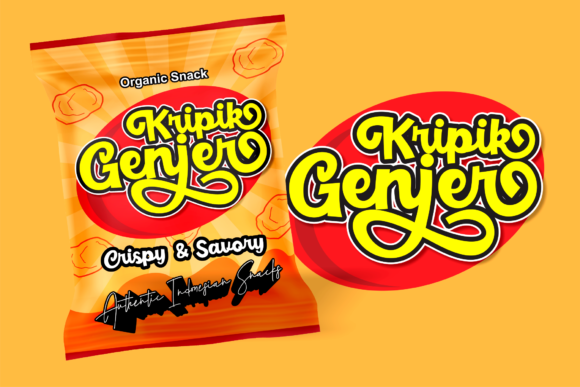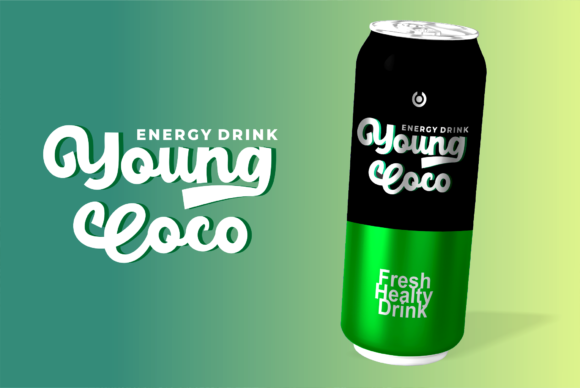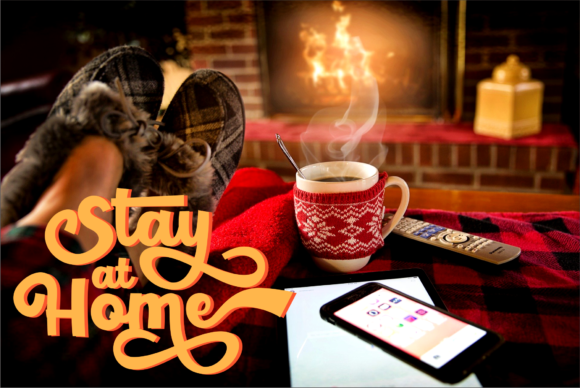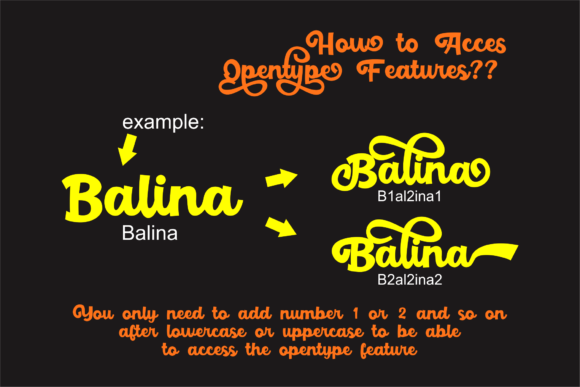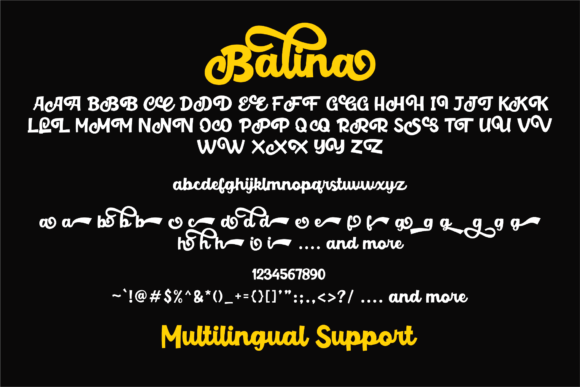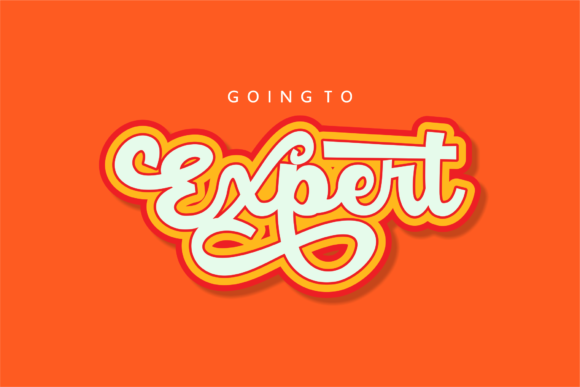
Introducing Balina Font: The Perfect Casual, Fun Handwritten Font for Designers and Crafters
Are you tired of using the same old fonts for your design projects? Look no further than Balina Font, a casual, fun handwritten font that’s clean, modern, and perfect for a variety of applications. Whether you’re a designer, crafter, or DIY enthusiast, Balina Font is the ideal choice for adding a personal touch to your logos, branding, social media, and crafty projects.
What is Balina Font?
Balina Font is a beautifully designed handwritten font that’s perfect for creating a friendly and approachable vibe. Its clean and modern aesthetic makes it versatile enough to use for a wide range of projects, from professional logos and branding to social media graphics and DIY crafts.
Key Features of Balina Font
- Casual and Fun: Balina Font has a playful, carefree feel that’s perfect for designs that need a personal touch.
- Clean and Modern: The font’s clean lines and modern aesthetic make it suitable for a wide range of applications, from professional to personal projects.
- Handwritten: Balina Font has a unique, handwritten feel that adds a touch of personality to any design.
- Versatile: This font is perfect for use in logos, branding, social media graphics, and crafty DIY projects.
Why Choose Balina Font?
There are many reasons why Balina Font stands out from the crowd. Here are just a few:
- Easy to Read: Balina Font is clear and easy to read, making it perfect for use in body text or as a headline font.
- Unique and Creative: The font’s handwritten feel adds a touch of creativity and personality to any design.
- Time-Saving: With Balina Font, you can create professional-looking designs in no time, without having to spend hours searching for the perfect font.
- Cross-Platform Compatibility: Balina Font is compatible with a wide range of devices and platforms, ensuring that your designs look great no matter where they’re viewed.
How to Use Balina Font
Balina Font is incredibly versatile, and can be used in a variety of ways. Here are a few ideas to get you started:
- Logos and Branding: Use Balina Font to create a unique and memorable logo for your business or brand.
- Social Media Graphics: Add a personal touch to your social media graphics with Balina Font.
- Crafty DIY Projects: Use Balina Font to add a creative touch to your crafty DIY projects, such as handmade cards, gift tags, and more.
- Invitations and Stationery: Balina Font is perfect for use in invitations, stationery, and other paper goods.
Tips for Getting the Most Out of Balina Font
Here are a few tips for getting the most out of Balina Font:
- Experiment with Colors: Balina Font looks great in a variety of colors, so don’t be afraid to experiment and find the perfect hue for your design.
- Play with Pairings: Try pairing Balina Font with other fonts to create a unique and interesting look.
- Use it in Combination with Images: Balina Font looks great when used in combination with images, so try incorporating it into your designs in creative ways.
Balina Font is a versatile and creative font that’s perfect for designers, crafters, and DIY enthusiasts. With its clean and modern aesthetic, casual and fun feel, and wide range of applications, it’s the ideal choice for adding a personal touch to your designs. Whether you’re creating logos and branding, social media graphics, or crafty DIY projects, Balina Font is sure to become a go-to font in your collection.